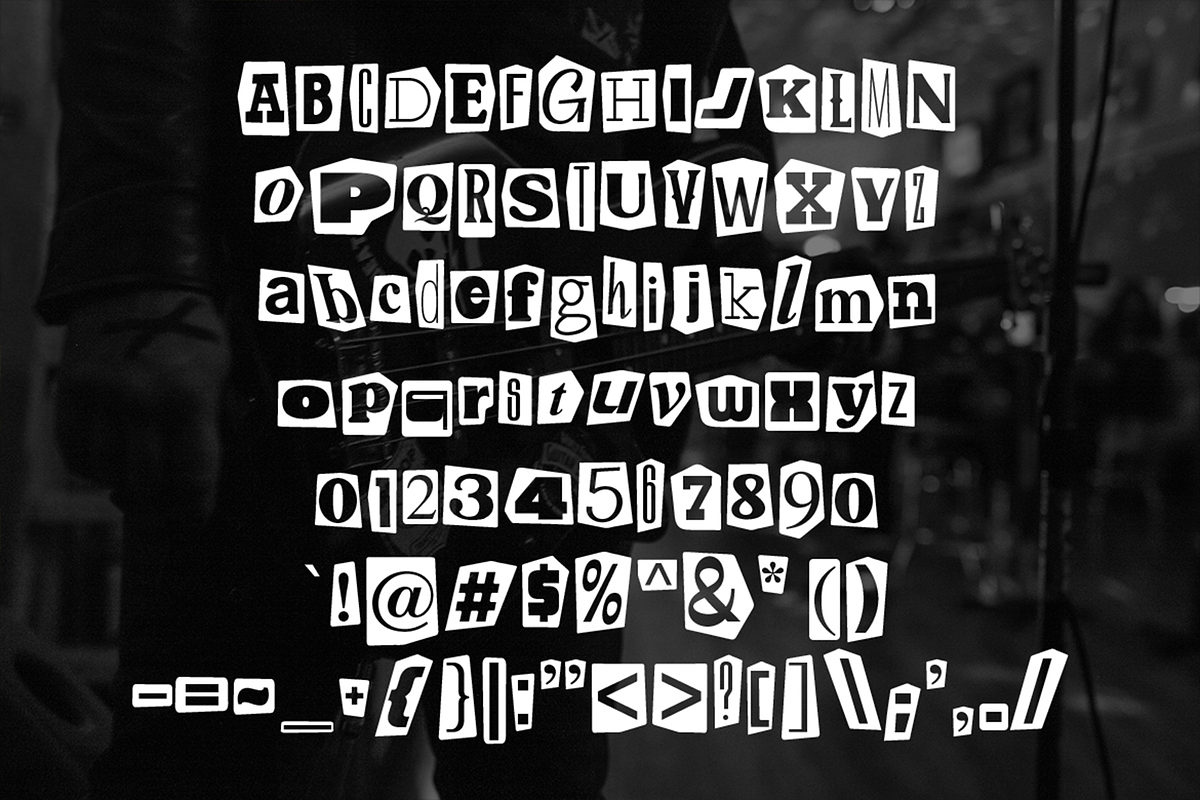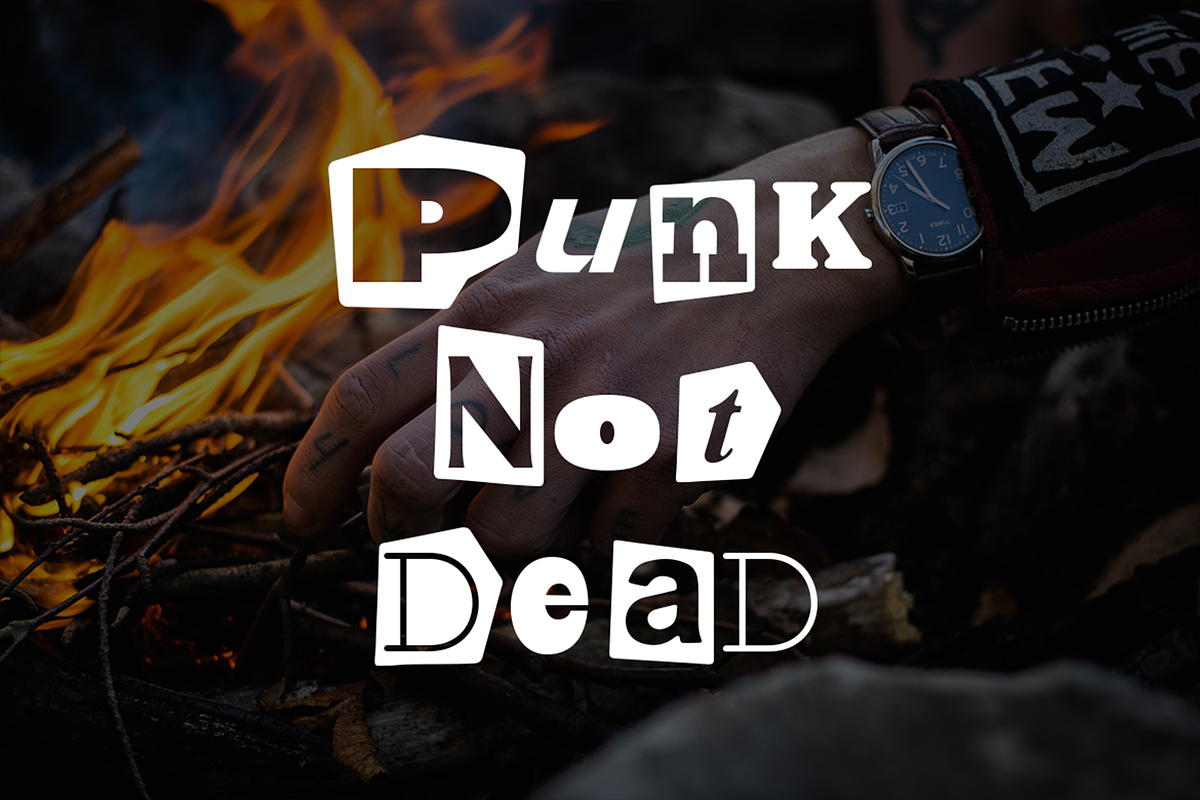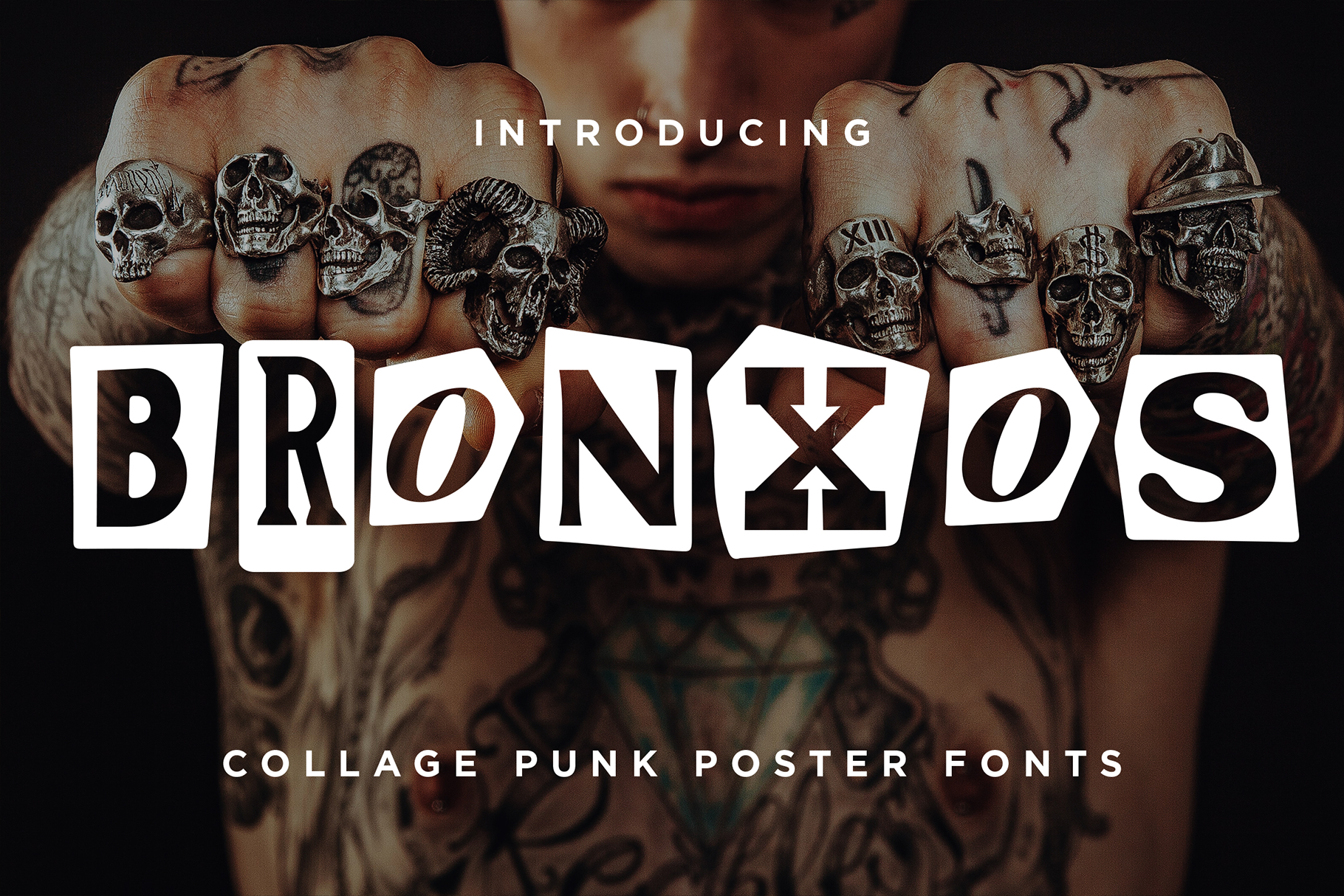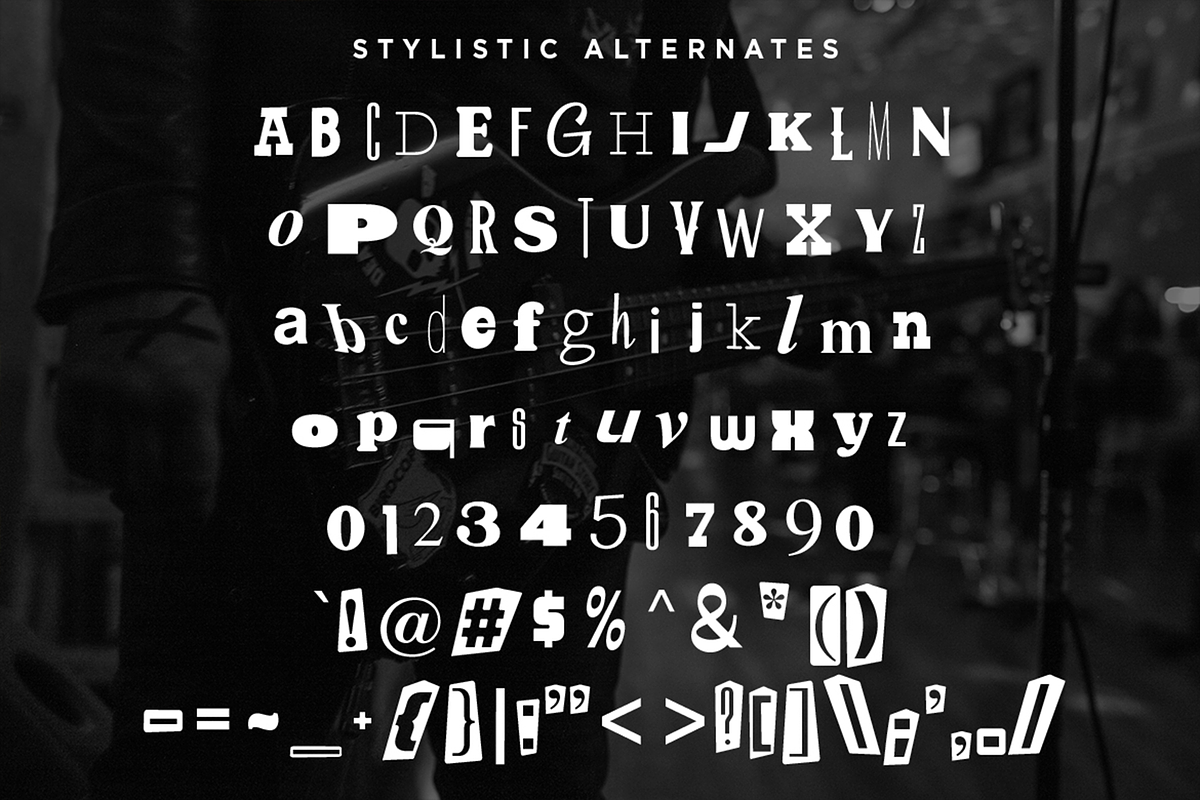
Bronxos – Collage Punk Poster Fonts
Inspired by the classic music poster back in the 90s using the letters that collaged from magazines and newspapers. We came up with the Bronxos, a compilation of variation fonts packed into one as a collage concept just like how you cut the magazine to make a poster back in the day.
Stylistic alternates are available for each letter.